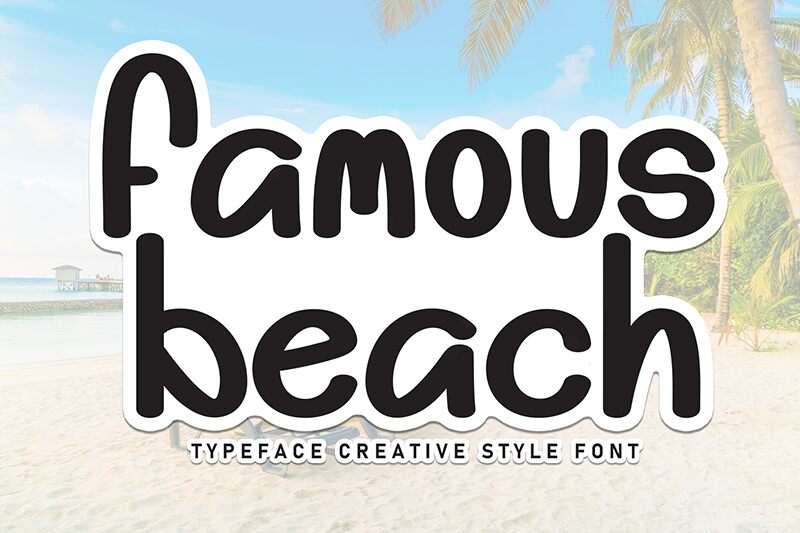
Famous Beach
Famous Beach font by Andi Moz is a smooth retro-inspired handwritten font with casual rounded characters. Its simple appearance and friendly tone make the design a suitable choice for relaxed projects. The harmony created among each element is the result of equal measurements such as letter height and width.
Famous Beach free handwritten font can be related to many themes including kids, summer, tropical, travel, water sports, and beaches. Combined use cases include bug attention publications like titles of logos inside posters, greeting cards, signage text, social media banners, etc.